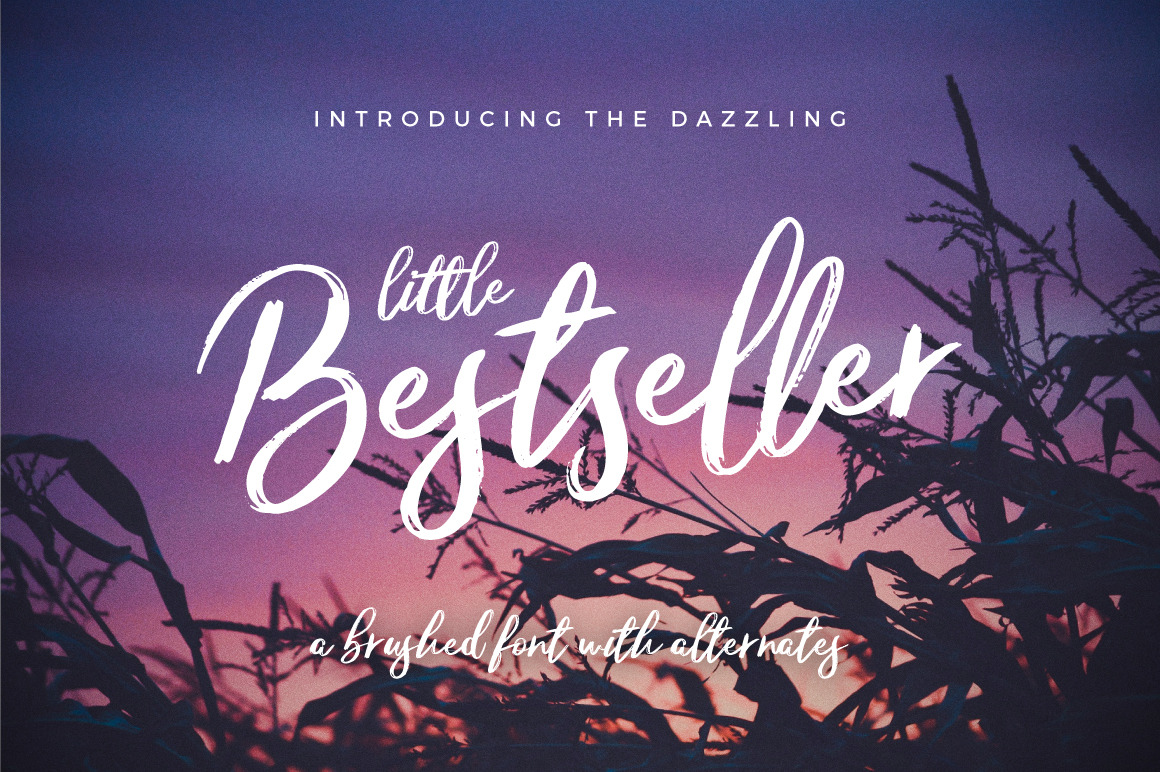
Say hi to a new trendy typeface Little Bestseller! It's a perfectly imperfect and well-driving font with a perfect texture for a real ink look. You can use it for multiple designs like ads, sales, logos, branding, posters, social media, text overlays, well you name the rest!! :D
I took a deep look into modern trendy advertisements and logos while I sketched this font. I think this one turned out pretty well and the alternate characters truly gives it that extra punch to make it more personal in whatever design comes to your table!
1. Little Bestseller- Upper and lowercase characters, numerals, punctuations and a wide language support. Extra ligatures for more complex letter-combinations like tt and ll. Including both, OTF and TTF filetypes.
2. Little Bestseller Alternates - Full alternates for upper and lowercase characters to make your design look more awesome!! Access alternates either via Glyphs Panel (OTF) or individual alt font (OTF, TTF).